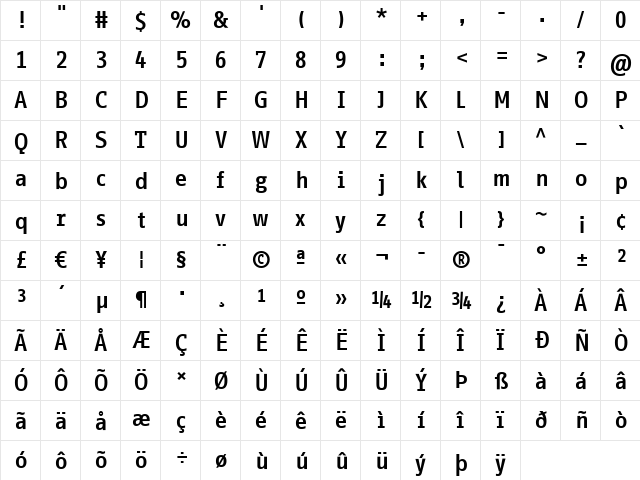
InfoOffice Bold
Design Context for InfoOffice Typeface
InfoOffice is a composed and adaptable typeface that performs quietly and consistently across a wide range of design contexts. The heavy weight commands attention and anchors typographic hierarchies.